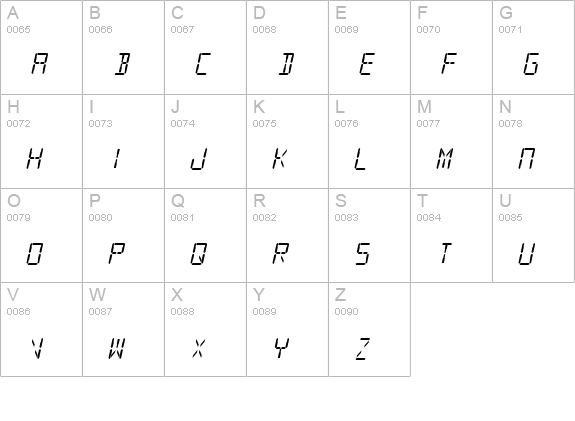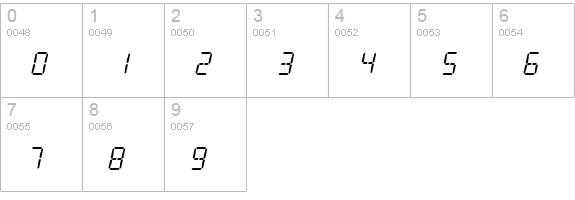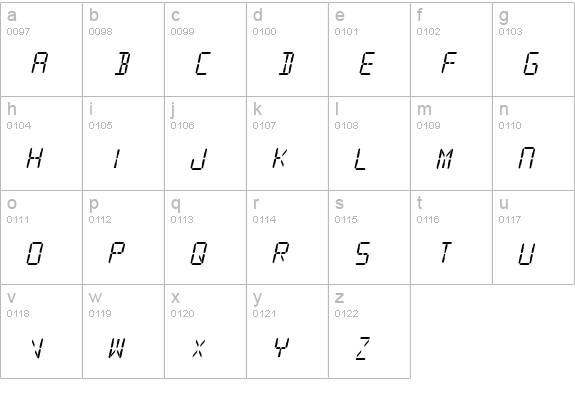
SF Digital Readout Medium Oblique Font Details
SF Digital Readout Medium Oblique is a balanced, medium-weight, italic variant in the SF typeface family \xE2\x80\x94 well suited to sub-headlines, navigation, and balanced editorial work.
SF Digital Readout Medium Oblique is a futuristic and technologically advanced font that will take your designs to the next level. With its sleek and angular design, this font exudes a sense of modernity and innovation. The medium oblique style adds a dynamic touch, making it perfect for projects that require a bold and edgy aesthetic. This font is not only visually striking but also highly functional. With its clear and legible letterforms, SF Digital Readout Medium Oblique ensures that your message is easily communicated to your audience. Whether it's for digital displays, tech-related designs, or even gaming projects, this font will capture attention and make a lasting impression. One of the best parts about SF Digital Readout Medium Oblique is that it is freely available to download at FontsMarket.com. This means that you can easily access and utilize this font for both personal and commercial projects without any restrictions. Its availability for free makes it an invaluable resource for designers, allowing them to experiment and explore new creative possibilities without breaking the bank. So, if you're looking to add a touch of futuristic flair to your designs, SF Digital Readout Medium Oblique is the perfect choice. Download it for free at FontsMarket.com and let your creativity soar to new heights.